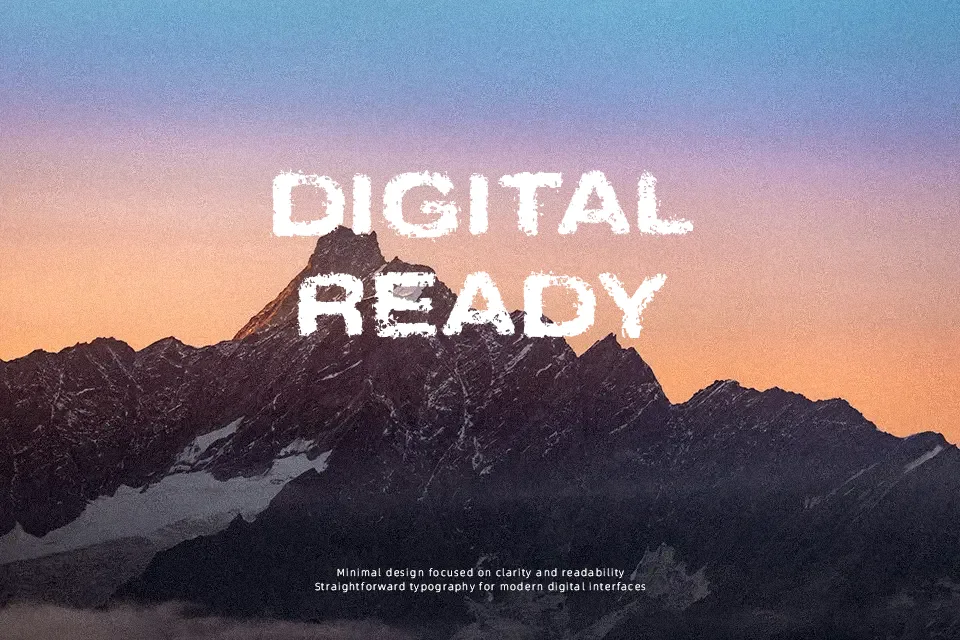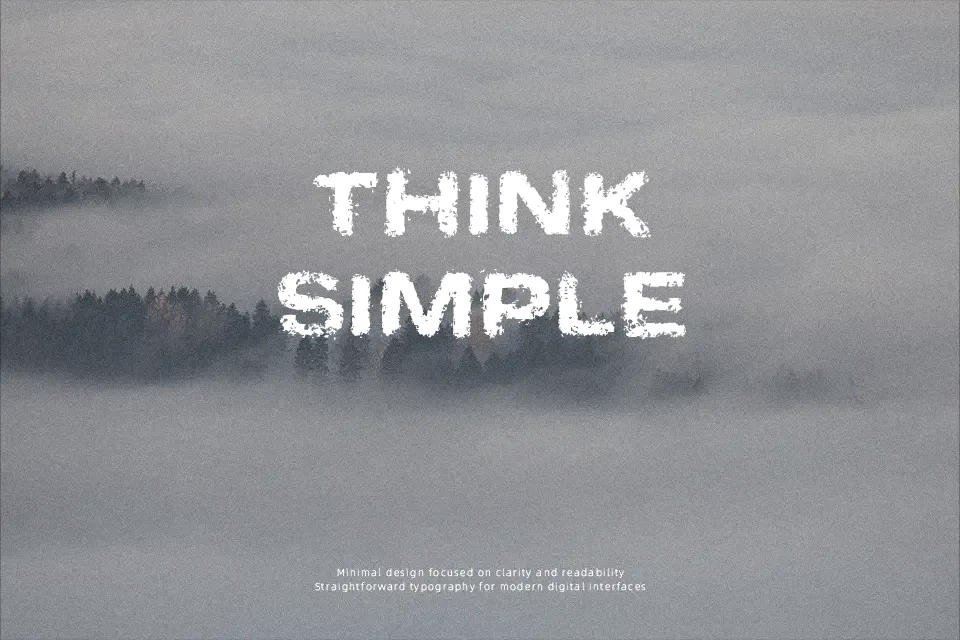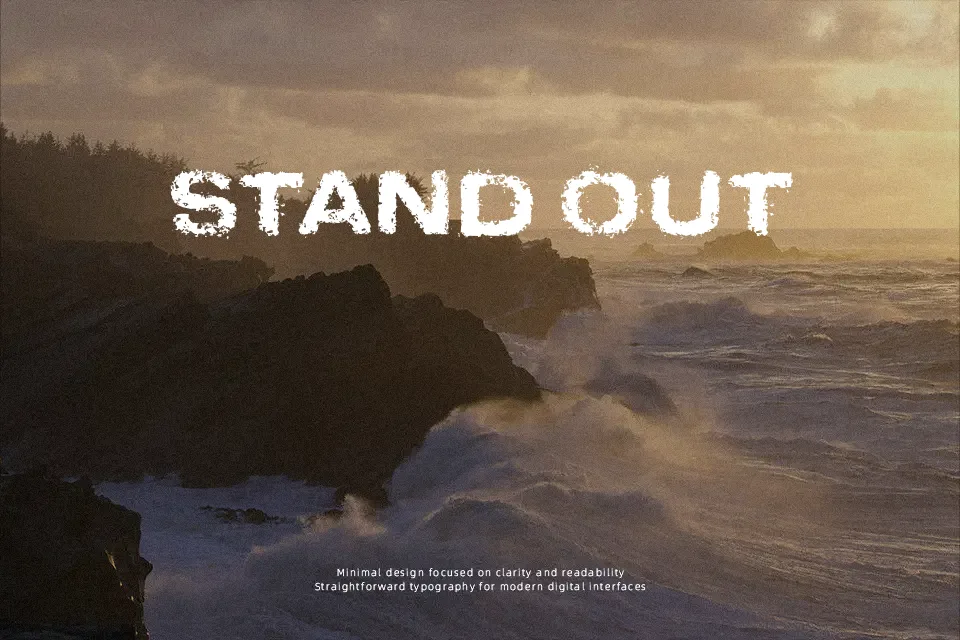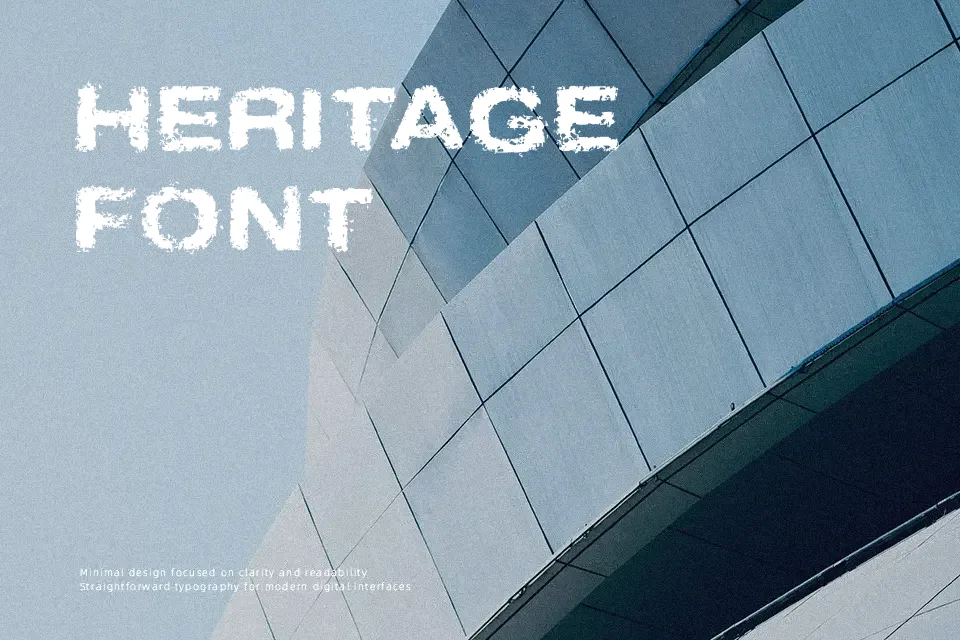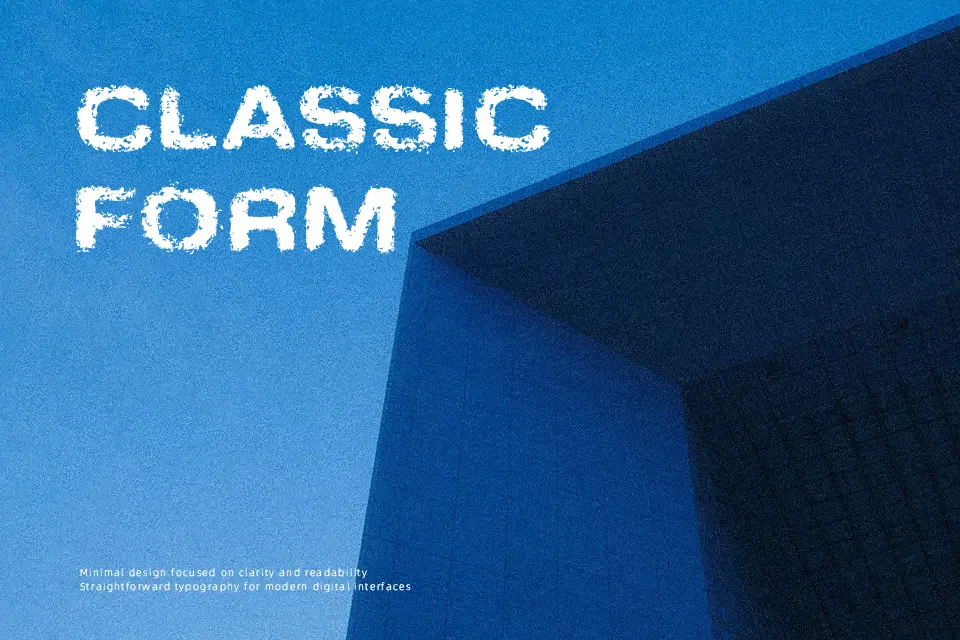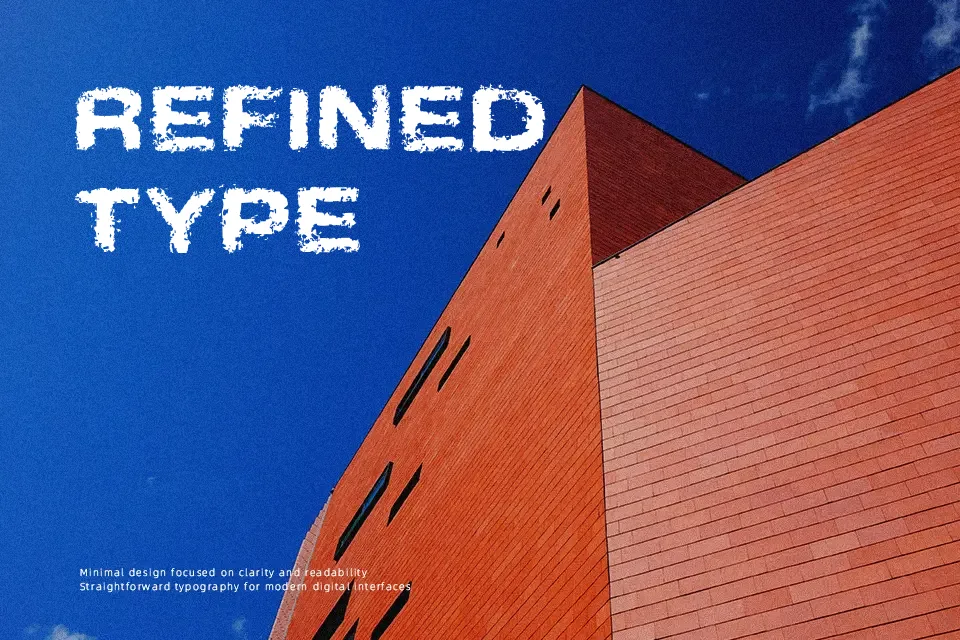
Sinder Font
Sinder Font presents an all-caps display construction with wide proportions and heavily distressed, eroded stroke perimeters. The letterforms feature thick, uniform weight with minimal stroke contrast, creating an imposing block-like structure. Spacing between characters is set relatively tight to maintain strong cohesion across short phrases. While the rugged texture and expansive width deliver outstanding presence in large headlines, title sequences, and event banners, the complex edge degradation impairs character separation at reduced scales. Consequently, the typeface remains unsuited for continuous body copy or dense information layouts where legibility is paramount. At prominent sizes, however, the gritty treatment provides immediate thematic strength.
Best For: horror movie title cards, heavy metal album covers, streetwear apparel graphics, halloween event posters
Not Ideal For: long body text, mobile app interfaces, corporate financial reports, small caption text
Perfect for gaming, halloween, and headline, with a bold and decorative style.